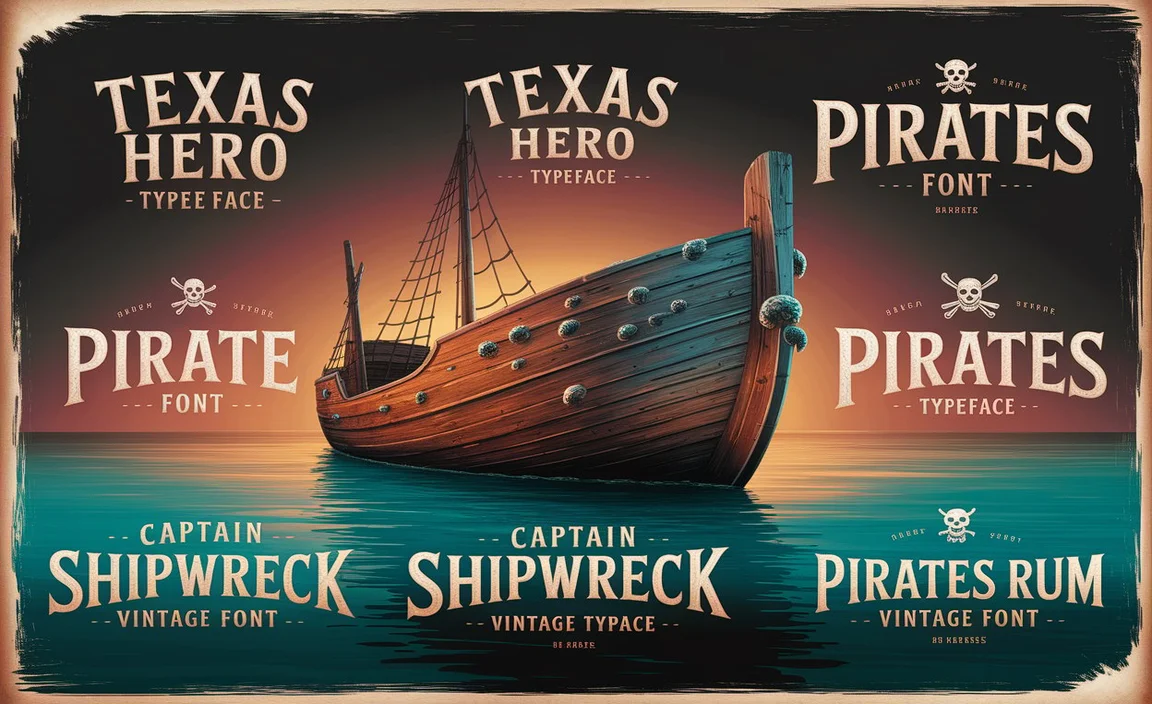
Pirate-themed designs bring an undeniable sense of adventure and mystique to your projects. Whether you’re creating a book cover, logo, poster, or any other type of graphic design, the right font can elevate your work and truly capture the essence of the high seas. In this article, we’ll explore some of the best pirate fonts available right now, from vintage pirate font styles to modern interpretations that evoke the spirit of legendary pirates. Let’s dive into the world of pirate fonts!
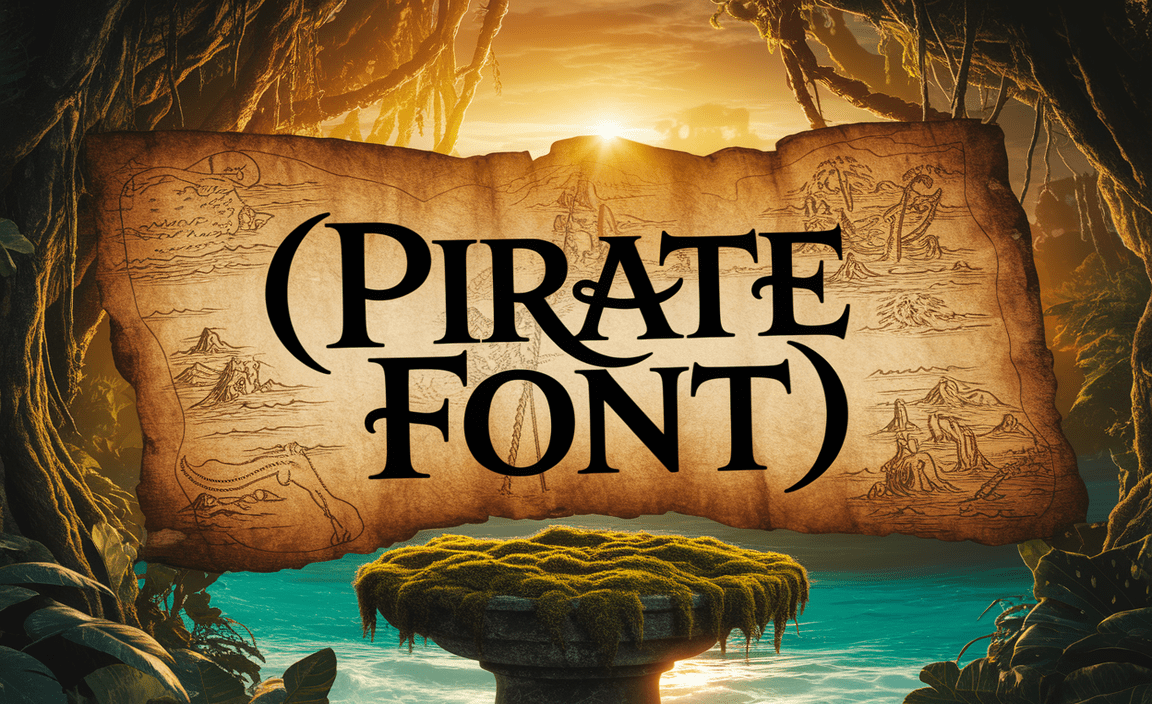
Cool Pirate Fonts You’ll Love to Use
Pirate fonts offer a unique style that adds a touch of rugged adventure to any project. These fonts often feature bold letterforms, blackletter designs, and intricate decorative elements that are perfect for pirate-themed design projects. A well-chosen pirate font can transform an ordinary label or logo into something that evokes images of treasure maps, swashbuckling adventures, and the mysterious depths of the ocean. Whether it’s a display font or a vintage-style typeface, the possibilities are endless.
Texas Hero
A classic font, Texas Hero captures the essence of old-school pirate writing. With its vintage and rugged look, this font is perfect for creating designs that reflect the bold, adventurous spirit of pirates. It works great for posters, book covers, and labels.
Pirates Font
This font brings a perfect combination of elegant and bold styles. Its blackletter influences and intricate decorative fonts make it ideal for any pirate-themed design. Use it for branding, posters, or even greeting cards that need a vintage touch.
Pirate Bay Typeface
A perfect font for evoking a sense of mystery and danger, Pirate Bay Typeface has a unique design that combines vintage aesthetics with modern readability. It’s perfect for logos, book covers, and pirate-themed branding projects.
Jack Pirate
This display font is a must-have for those working on pirate-themed designs. With its strong personality and vintage appeal, Jack Pirate is great for any project that needs a touch of rebellious pirate flair.
Captain Shipwreck Font
For those who want a more rugged and adventurous look, Captain Shipwreck Font is the ideal choice. This font draws inspiration from pirate ships, outlaw themes, and vintage labels, making it perfect for anything from beer labels to pirate-themed posters.
Pirates Rum Vintage Typeface
This font exudes the vintage charm of pirate rum labels and old maps. With its decorative style, Pirates Rum Vintage Typeface adds an old-world feel to any design. It’s perfect for themed designs, posters, and branding projects that want to channel the spirit of pirate treasure.
El Piratos
If you’re looking for a script font with a pirate twist, El Piratos is a fantastic option. Its fluid, swashbuckling style brings an element of adventure to any design, and it’s perfect for use in greeting cards, logos, and branding materials.
Bucanera Font
Bucanera Font offers a unique take on pirate typography, combining elegant serif fonts with decorative elements that evoke a vintage pirate vibe. It’s ideal for use in vintage pirate design projects or pirate-themed labels.
Pirates Display Typeface
This font stands out as a true display font with its bold strokes and adventurous feel. Whether you’re designing a logo, a poster, or a pirate fantasy font for a book cover, Pirates Display Typeface will help your design stand out.
Why Choose a Pirate Font?
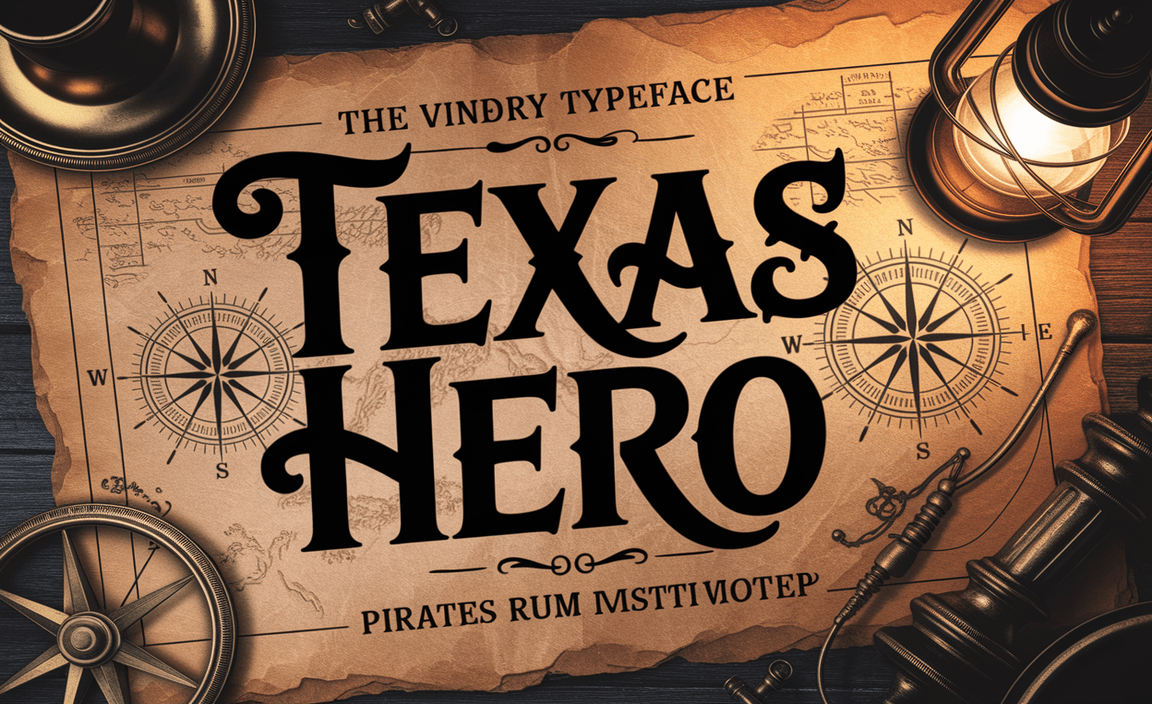
A well-chosen pirate font is key to capturing the right aesthetic for pirate-themed designs. Pirate fonts often feature serif or blackletter designs, conveying a sense of history and adventure. Their bold, decorative style makes them perfect for display purposes. Here’s why you should use pirate fonts in your designs:
- Pirate Fonts Evoke a Sense of Adventure: Whether you’re working on a pirate vintage style font for a poster or a logo for a pirate-themed brand, these fonts will transport your audience to a world of swashbuckling pirates and treasure hunts.
- Great for Themed Designs: Pirate fonts are perfect for themed designs, including pirate hunter logos, vintage rum labels, and pirate fantasy projects. Whether it’s for a greeting card, branding, or a book cover, a pirate font sets the tone.
- Stylish and Versatile: While many pirate fonts are bold and strong, others, like script fonts, offer a more playful and stylish touch. Whether you need a serif font for an old-school vibe or a display font for attention-grabbing designs, there’s a pirate font for every project.
Where to Use Pirate Fonts
Pirate fonts work best in a variety of projects that need to evoke a sense of adventure, history, and rebellion. Here are some of the best places to use these fonts:
- Book Covers: Pirate fonts are ideal for book covers, especially for novels that take place in a world of high seas adventure. They can be used to create dramatic, attention-grabbing titles.
7. What Type Of Fonts Are Best For Vintage Pirate Designs?
Vintage-style fonts, such as Pirates Rum Vintage Typeface, Texas Hero, and Bucanera Font, are perfect for creating authentic, retro pirate designs.
9. What Design Projects Are Pirate Fonts Ideal For?
Pirate fonts are perfect for book covers, posters, logos, branding, labels, greeting cards, and any project requiring a vintage or adventurous aesthetic.